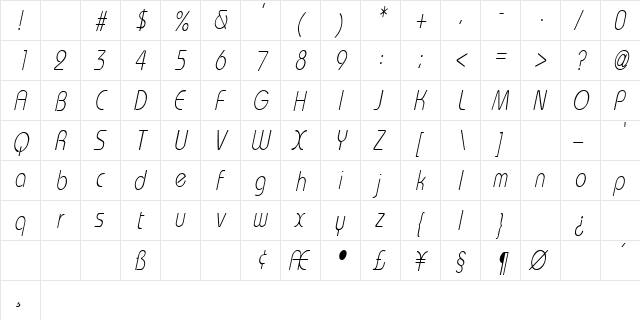
WashingtonMetroCondensed Italic Font Preview
Design Context for WashingtonMetroCondensed Typeface
WashingtonMetroCondensed is a composed and adaptable typeface that performs quietly and consistently across a wide range of design contexts. The dynamic lean of this cut emphasises speed and emphasis in any layout. The condensed width makes it efficient for tight spaces without sacrificing legibility.